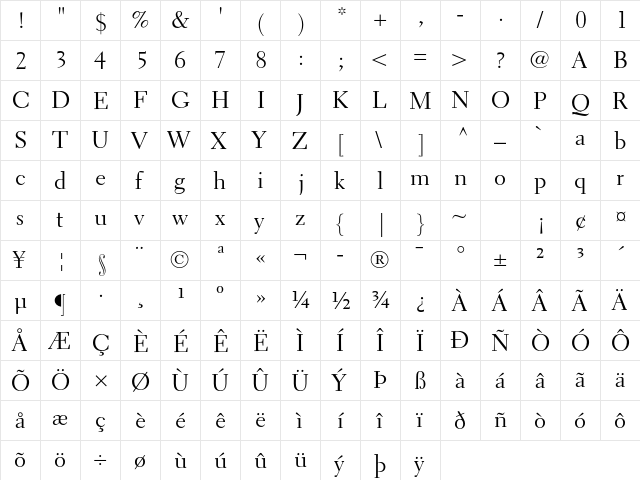
Electra LT Std Regular
| Designer | William A. Dwiggins |
Design Context for Electra LT Std Typeface
Electra LT Std offers clean, dependable letterforms without strong stylistic allegiance, making it a practical choice for designers who need flexibility. The delicate stroke weight brings airiness and refinement to layouts.